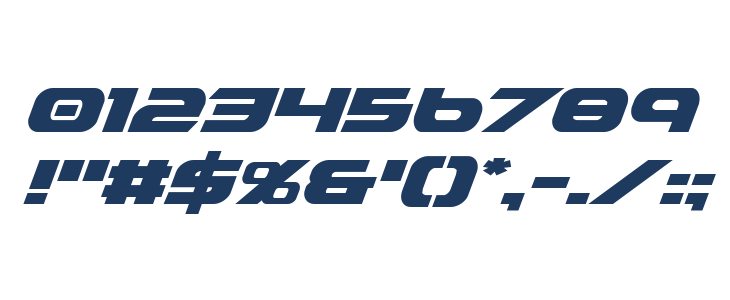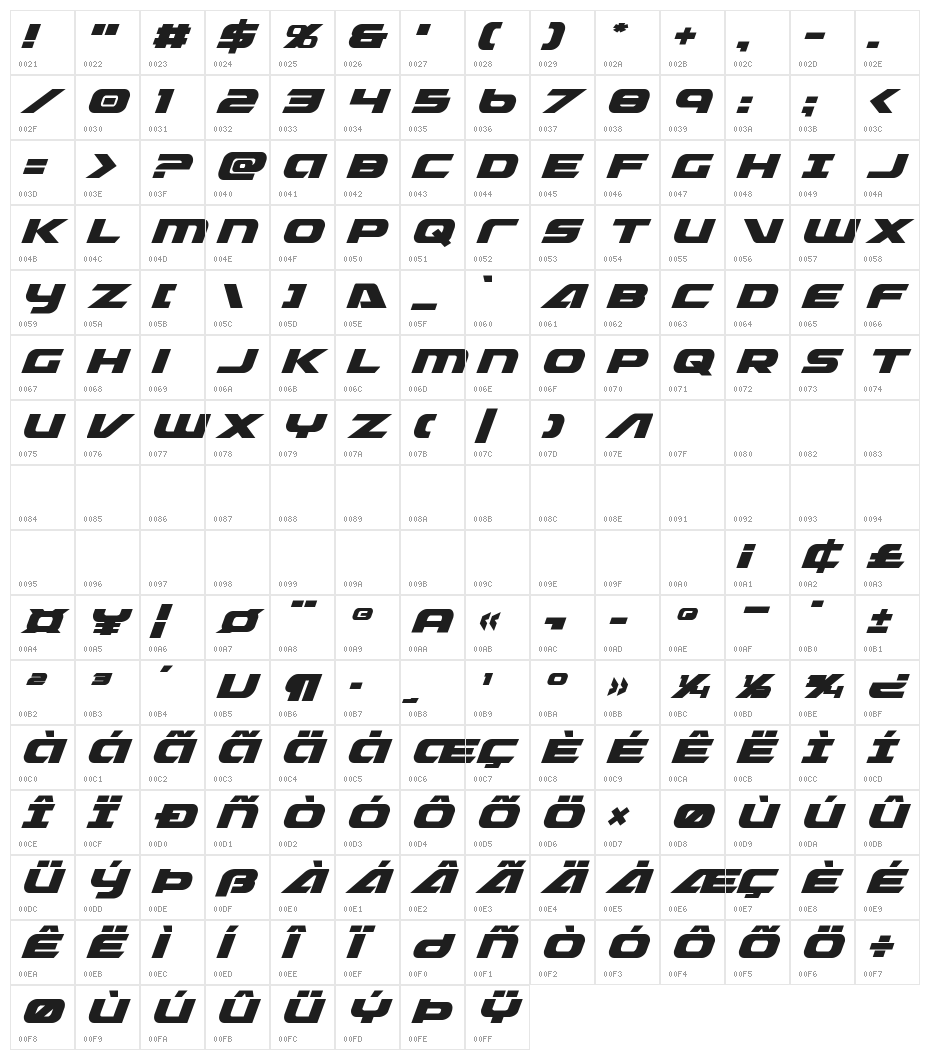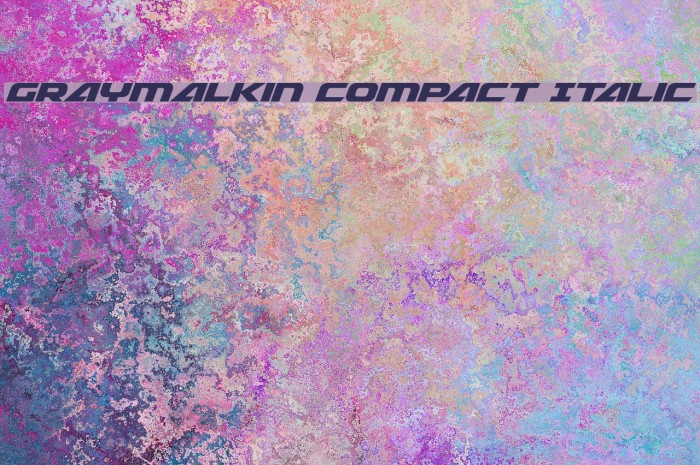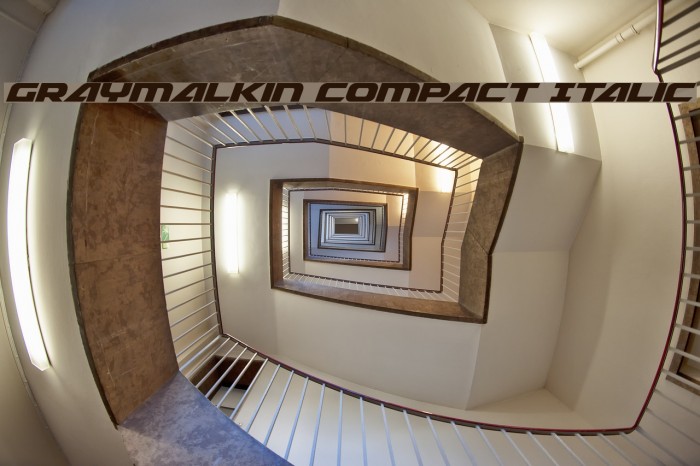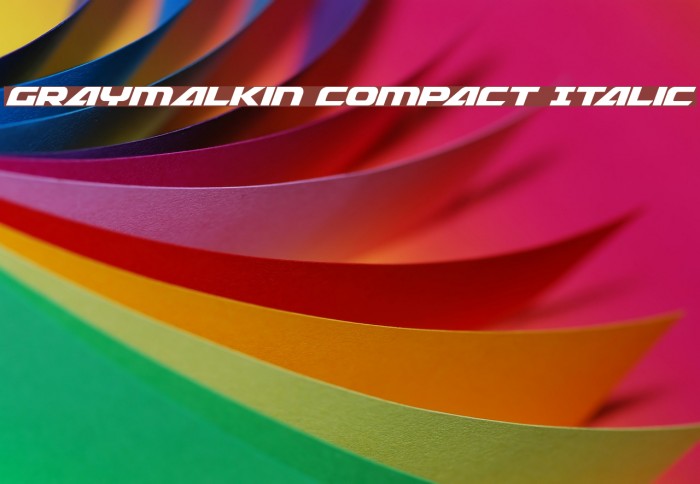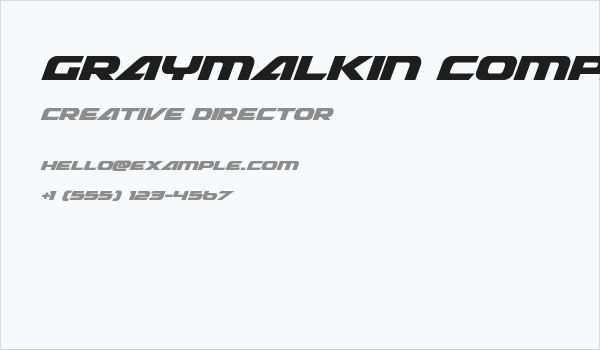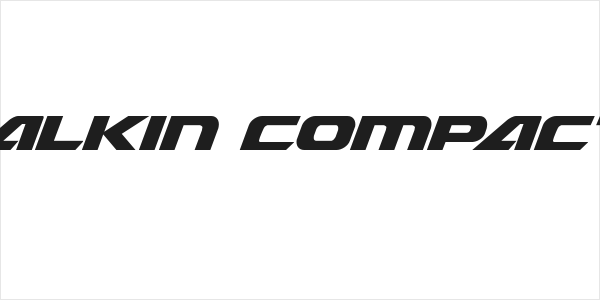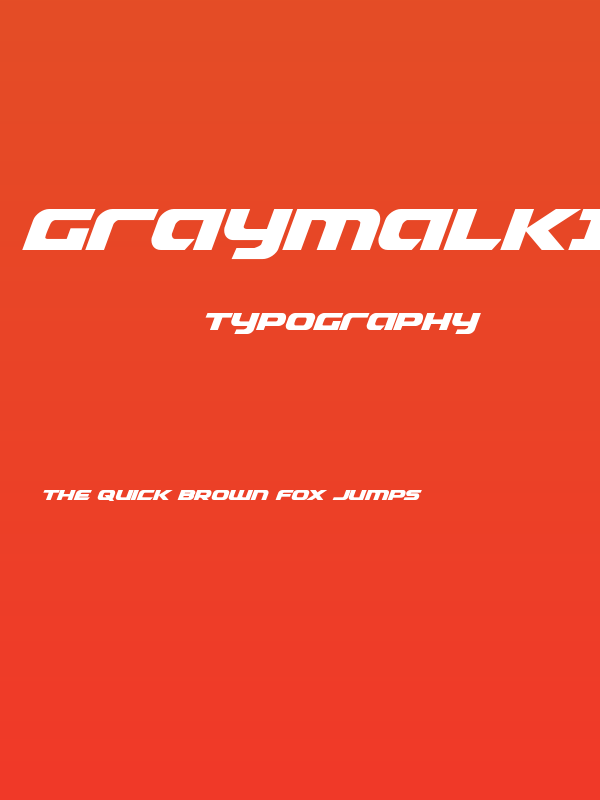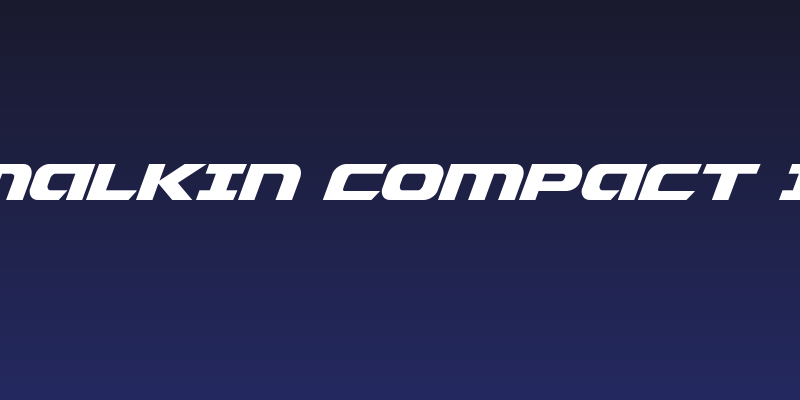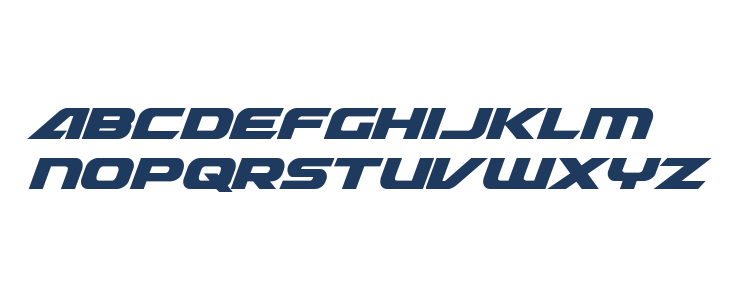
Graymalkin Compact Italic Font
Graymalkin Compact Italic Description
This font features a bold, italicized style with a futuristic and dynamic appearance. The characters are compact and slightly slanted, giving a sense of motion and speed. The design includes sharp angles and clean lines, making it suitable for modern and tech-oriented projects. The uppercase and lowercase letters maintain a consistent style, while the numbers and special characters are designed to match the overall aesthetic. The font's unique style makes it stand out, while its legibility ensures it remains practical for various uses.
| Proposed Projects | Ideal for tech branding, sports team logos, video game titles, and sci-fi themed designs. |